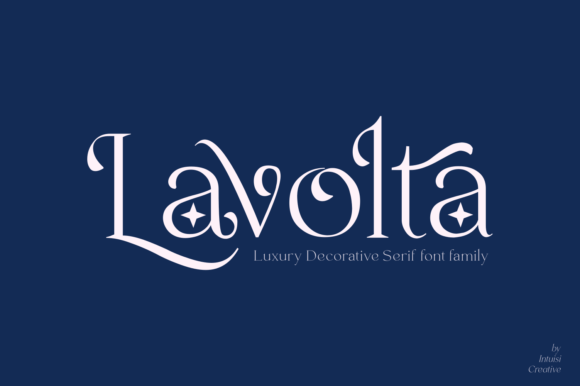
Introducing Lavolta, the Ultimate Serif Font Family to Elevate Your Design Creations!
In a world of digital designs and captivating aesthetics, the choice of font plays a pivotal role in capturing attention and communicating your message with panache. Allow us to introduce you to Lavolta, a serif font family that is not just a collection of letters, but a gateway to a world of visual enchantment.
With its modern style and versatile appeal, Lavolta is the perfect companion for your creative endeavors. Picture this: your designs adorned with Lavolta's elegant curves and refined serifs. From invitations that exude timeless grace to product branding that radiates sophistication, Lavolta's versatility knows no bounds.
Dive into a world of endless possibilities with Lavolta. Its meticulously crafted characters will lend an air of distinction to your packaging designs, transforming them into works of art. Create movie titles that captivate audiences, book covers that entice readers with their allure, and magazine layouts that demand attention. Lavolta is the ultimate muse for designers seeking to make a lasting impression.
But that's not all. Lavolta's charm extends to the realm of digital design, where it shines as a beacon of readability and style. Its carefully balanced letterforms render beautifully on screens, ensuring your website designs leave a lasting impression. Lavolta's versatility is truly remarkable, seamlessly adapting to various design styles and contexts.
But what sets Lavolta apart from the ordinary? It's all in the details. The Lavolta Swash variant adds a touch of vintage charm with its 130+ alternative characters. Unleash your creativity with contextual alternates (CALT) that effortlessly transform long texts into visually engaging masterpieces.
Step into the enchanting world of Lavolta Swash Deco, where stars dance and play across your designs, creating a vibrant and festive atmosphere. Engage your audience with designs that evoke joy, wonder, and a sense of celebration.